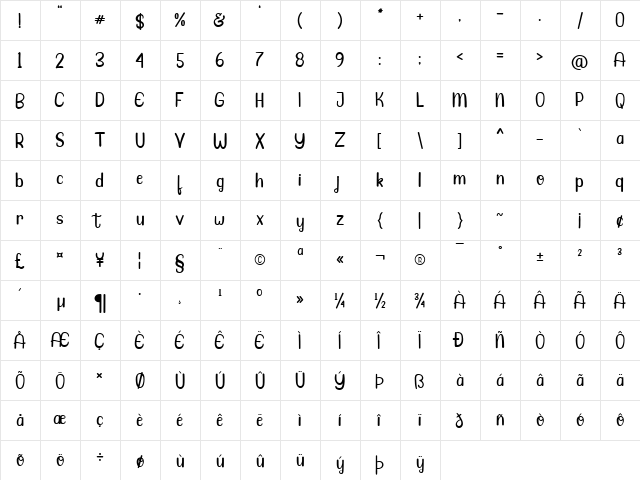
Sweeta Regular
Design Context for Sweeta Typeface
Sweeta is a composed and adaptable typeface that performs quietly and consistently across a wide range of design contexts.